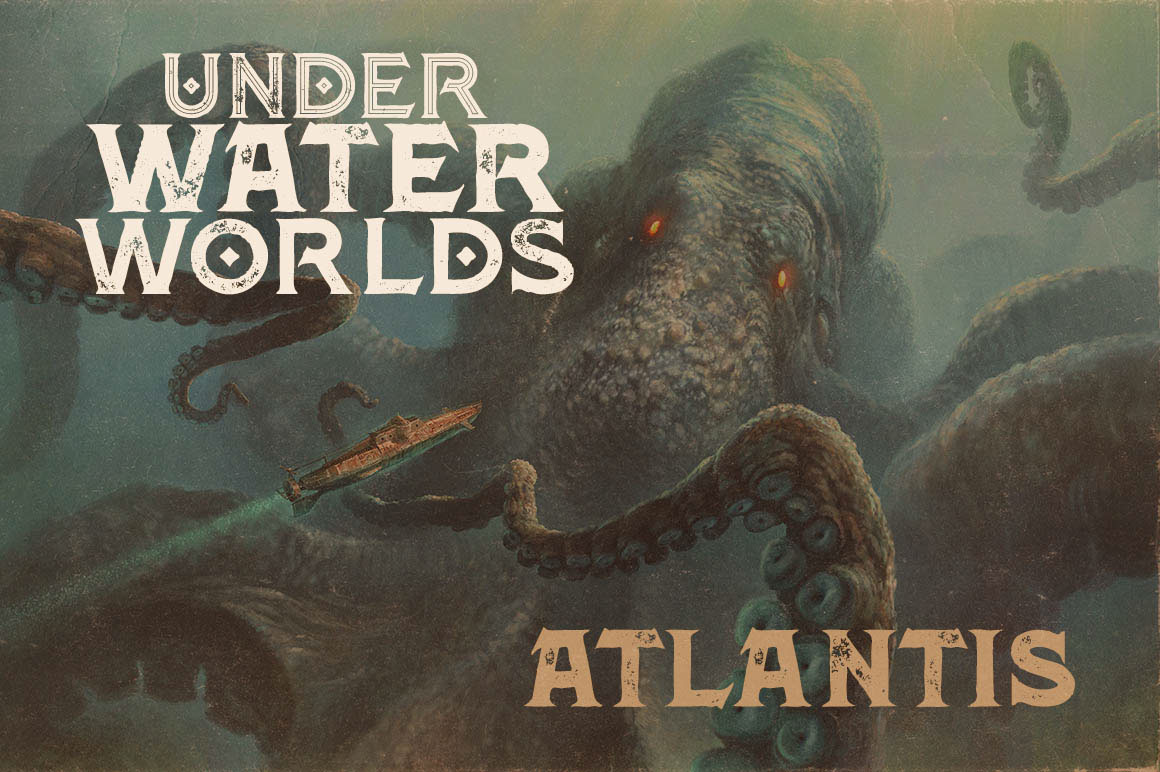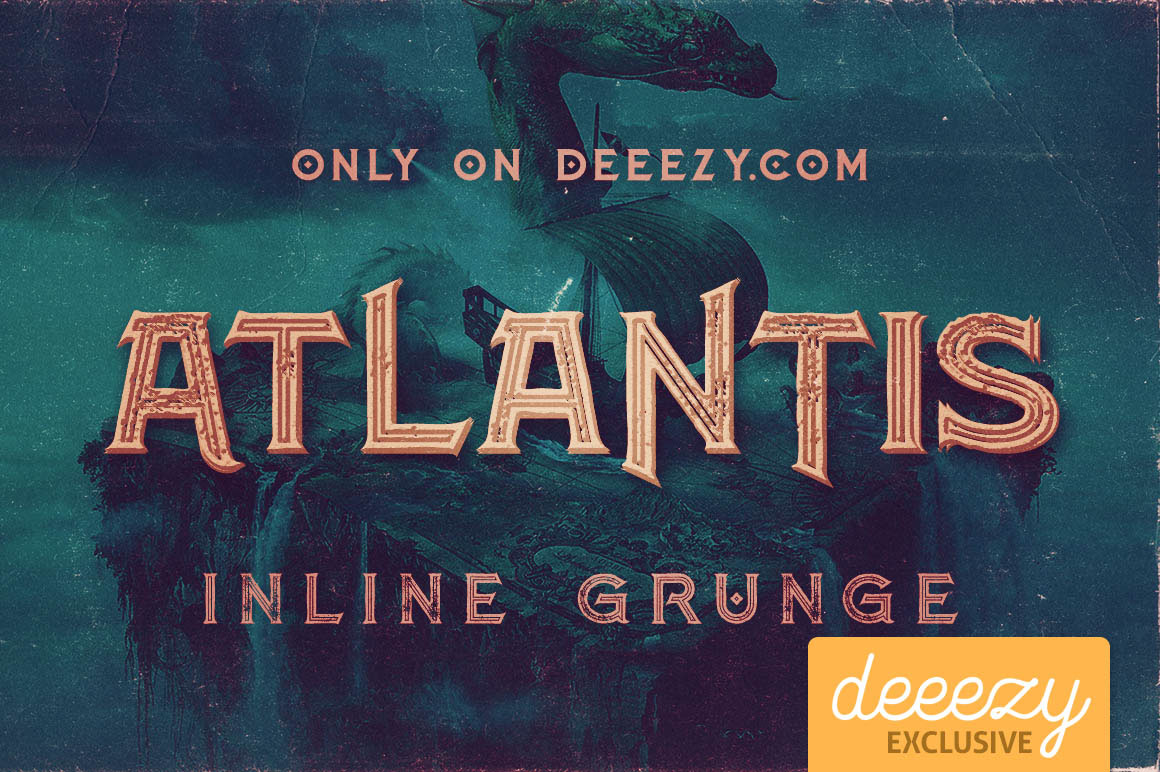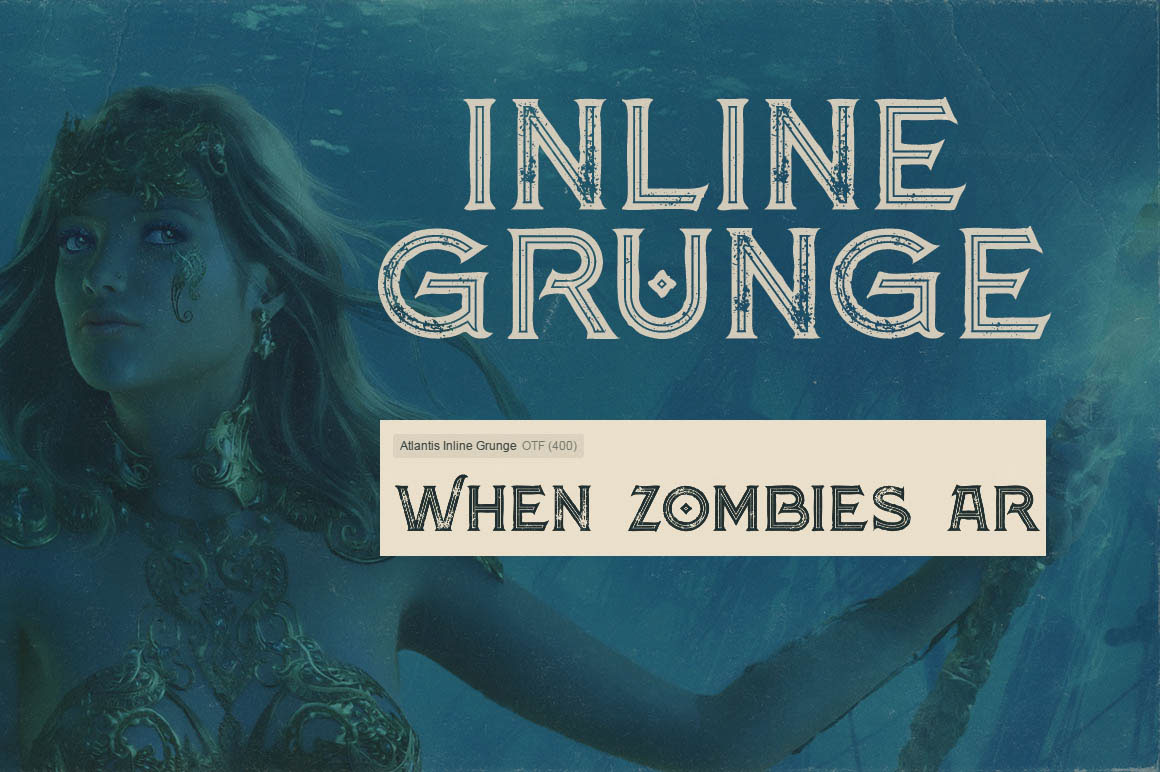
If you want to impress your typeface toolbox, grab hold of this unique vintage style custom serif font today! Atlantis Inline was created by Deeezy.com and it’s free for personal and commercial use. Great choice for all sorts of retro printed projects – logos, T-shirts, magazine covers, posters, and more.